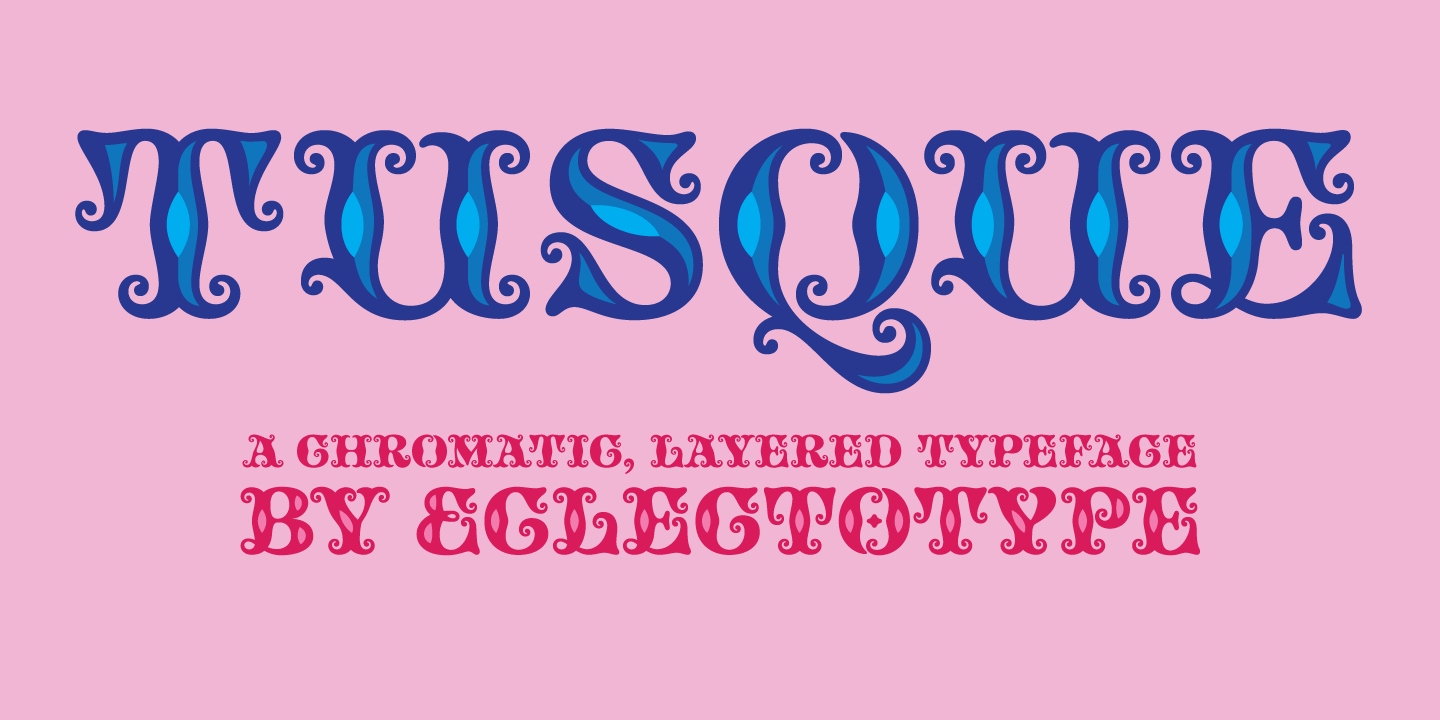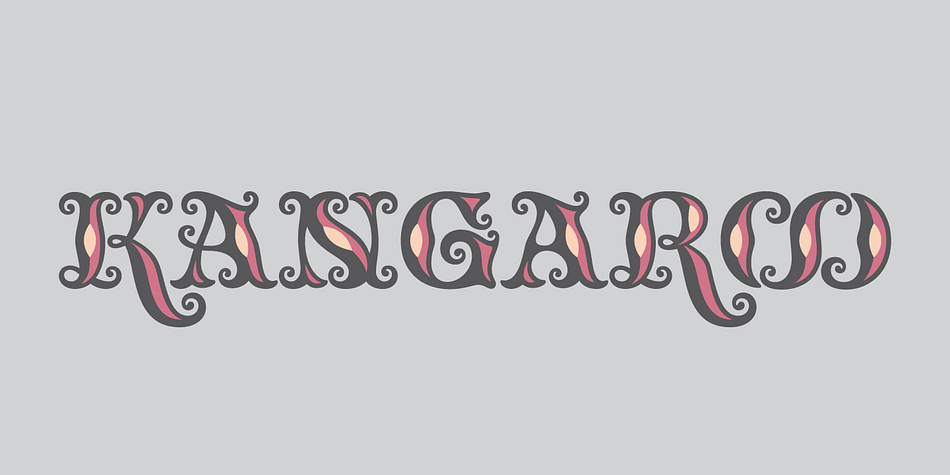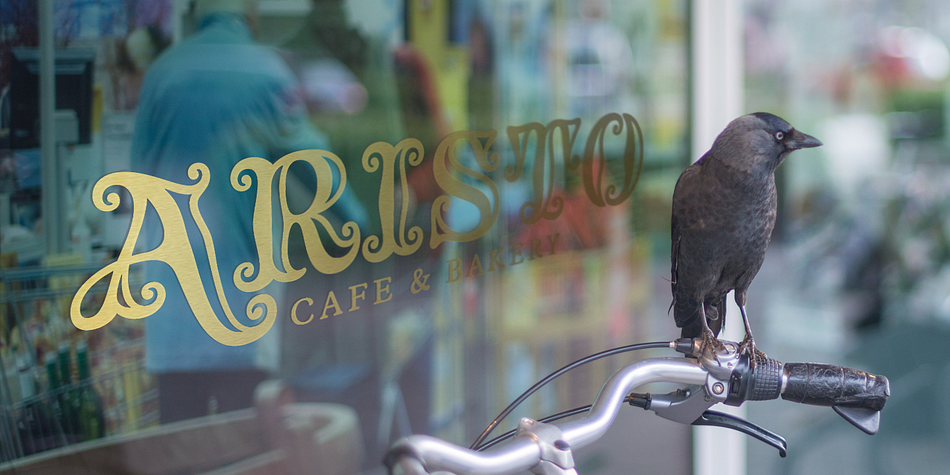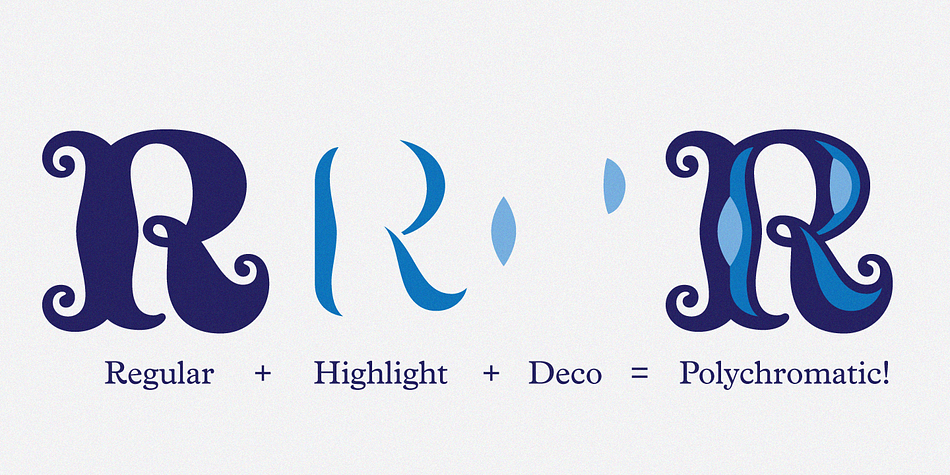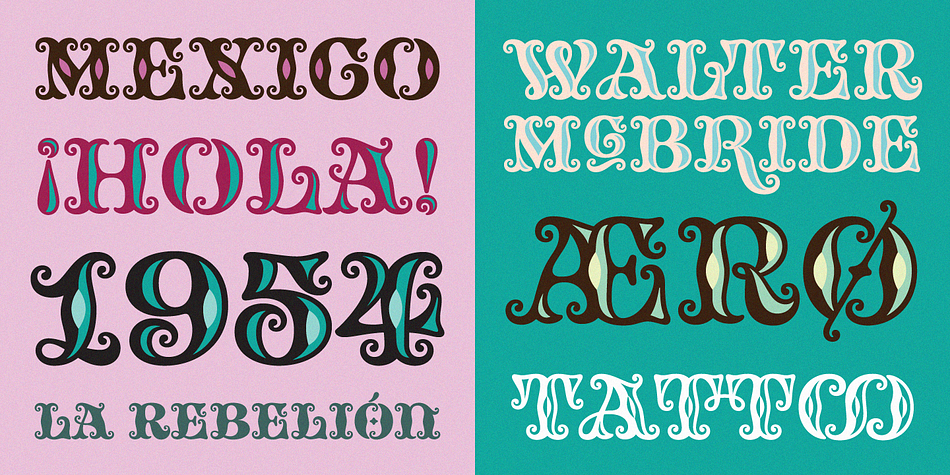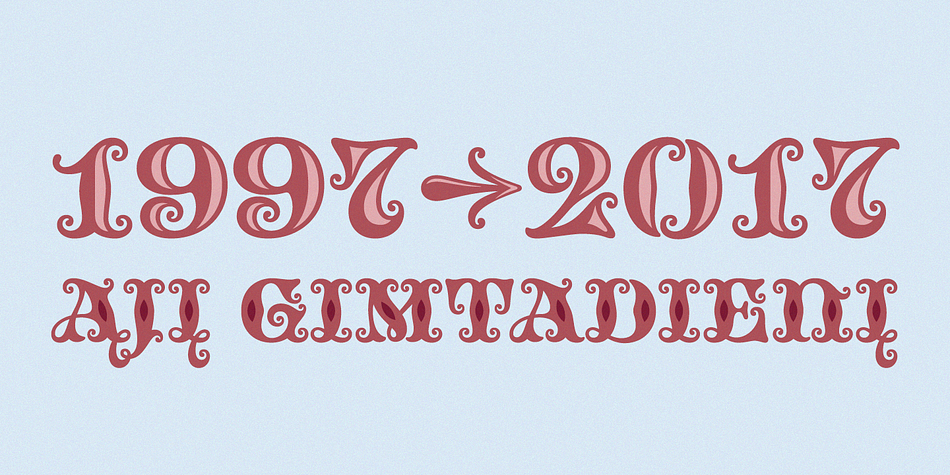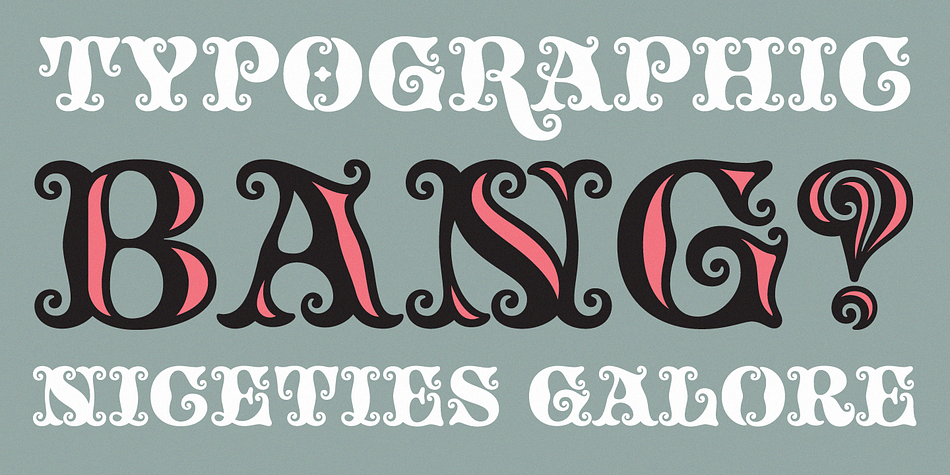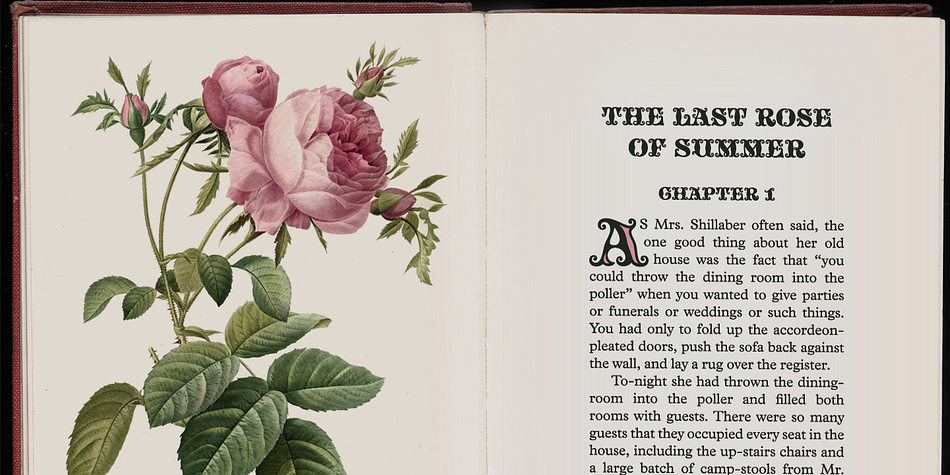
TUSQUE
Tusque is a display serif font family. This typeface has five styles and was published by Schizotype Fonts.
Tusque is a layered chromatic type family with a Tuscan flavor.
Regular, Circus and Tooled can stand alone, while Highlight and Deco are purely for layering up multicolored gorgeousness. Tusque lends itself to fairy tales, wine labels and boutique logos, and makes some particularly delectable drop caps.
Although it’s all caps, the lower case slots are all different from the upper case so you can mix and match to your heart’s content. There are also a bevy of swash alternates and ligatures at your disposal. The contextual alternates feature cleverly substitutes alternate versions of more triangular glyphs like A and V to give a better fit.
The ordinal feature changes ‘a’ and ‘o’ to the feminine and masculine ordinals for Spanish etc. but also changes ‘c’ and ‘ac’ to superscript lowercase versions for names like McBride and MacDonald.